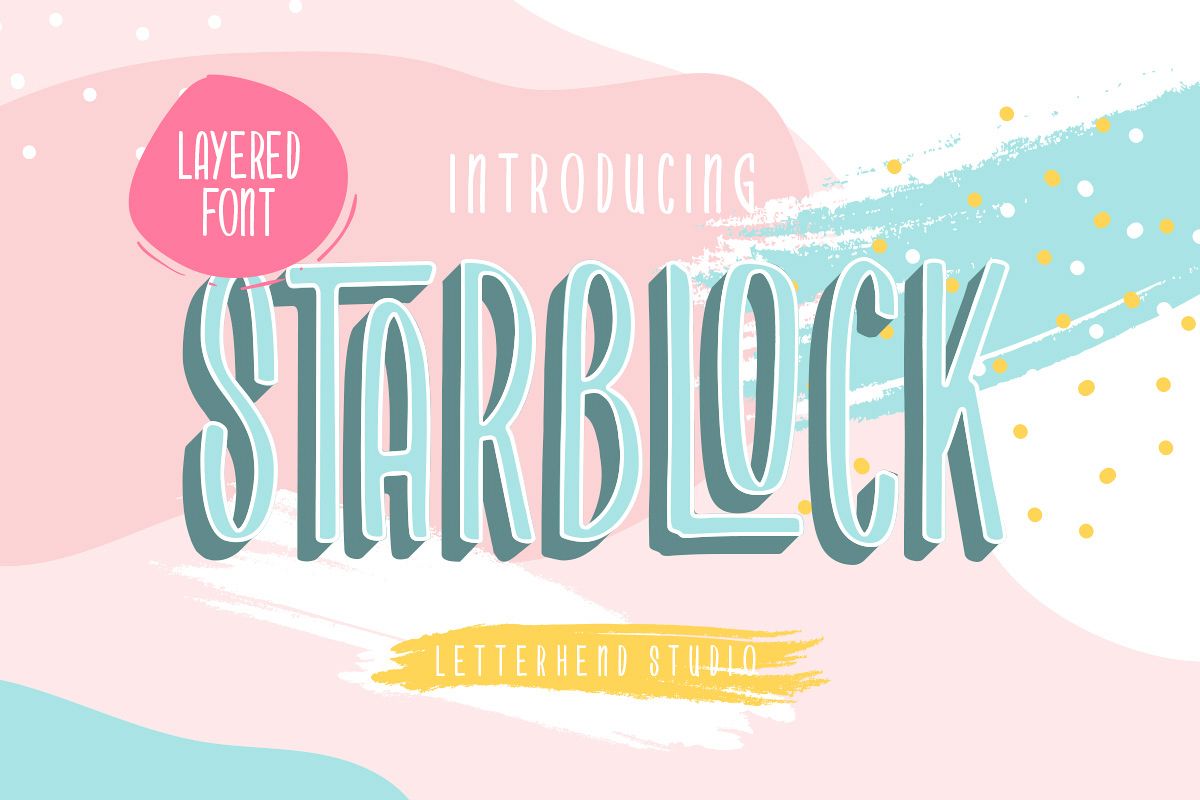
Starblock - Layered Font
Introducing, Starblock. A Fun Font with layer feature! It has casual feel and playful, suitable for kids apparel, storybook, cover, invitation etc.